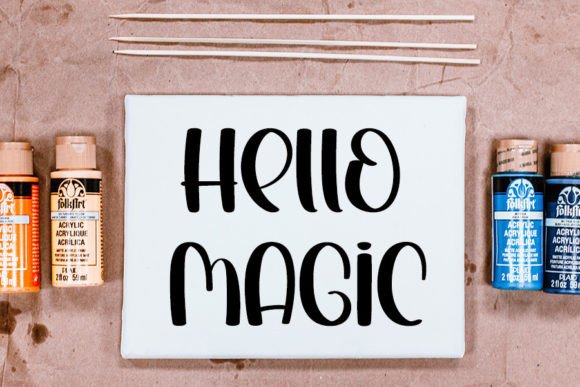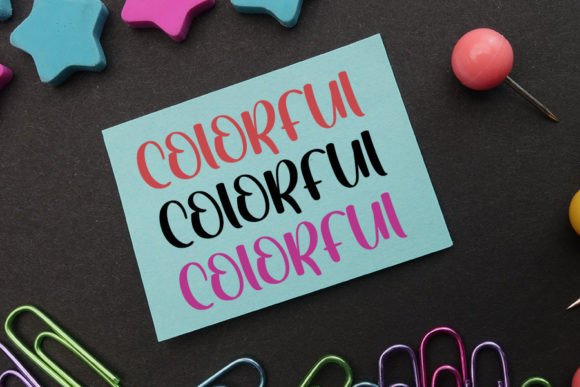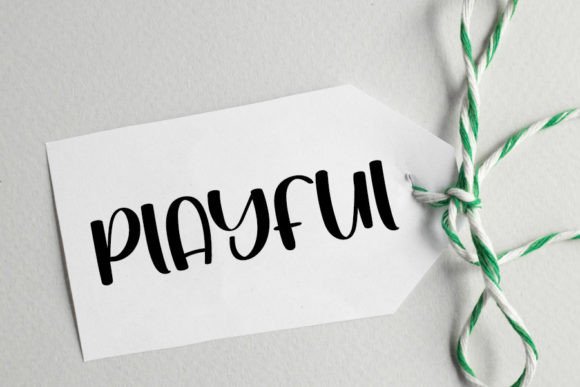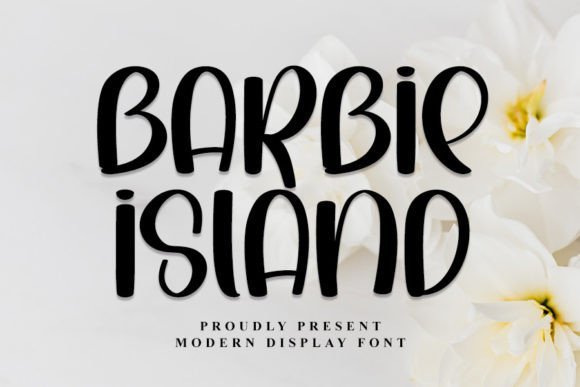
Introduction to Barbie Island Font
Barbie Island is a neat and beautiful handwritten font described by an elegant touch, perfect for your favorite projects.
Fall in love with its incredibly distinct and timeless style, and use it to create spectacular designs .
Key Features of Barbie Island Font
Why Choose Barbie Island Font?
Barbie Island Font offers exceptional quality and versatility, making it a valuable addition to your design toolkit. Whether you’re creating for personal projects or commercial use, Barbie Island Font delivers professional results.